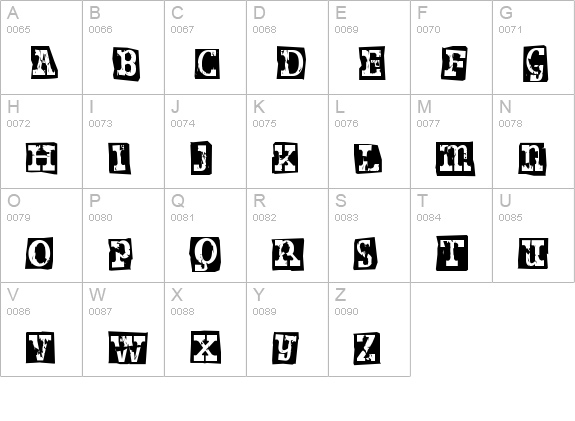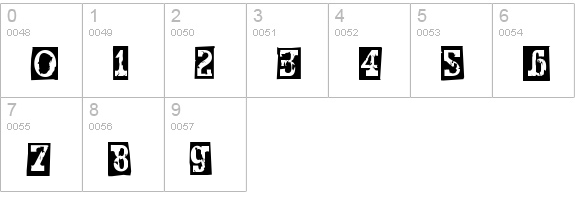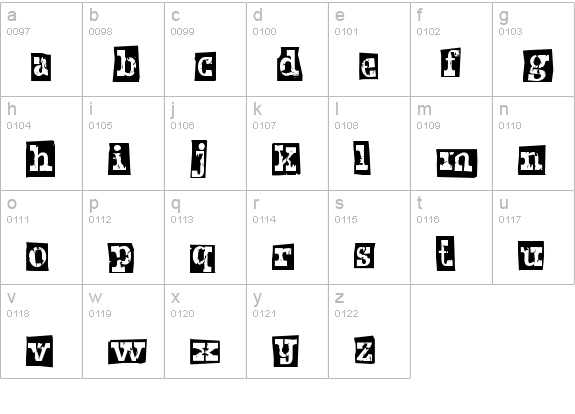
DustWesten font is a unique and stylish typeface that captures the essence of the wild west with its rugged and weathered appearance. The font features handcrafted letterforms with a distressed texture, giving it a rustic and vintage feel. DustWesten is perfect for projects that require a touch of old-world charm and a hint of adventure. Best of all, DustWesten font is available for free download at FontsMarket.com. Whether you're working on a design project, creating branding materials, or just looking to add a touch of western flair to your creations, DustWesten font is the perfect choice. Download it today and bring a touch of the wild west to your designs!